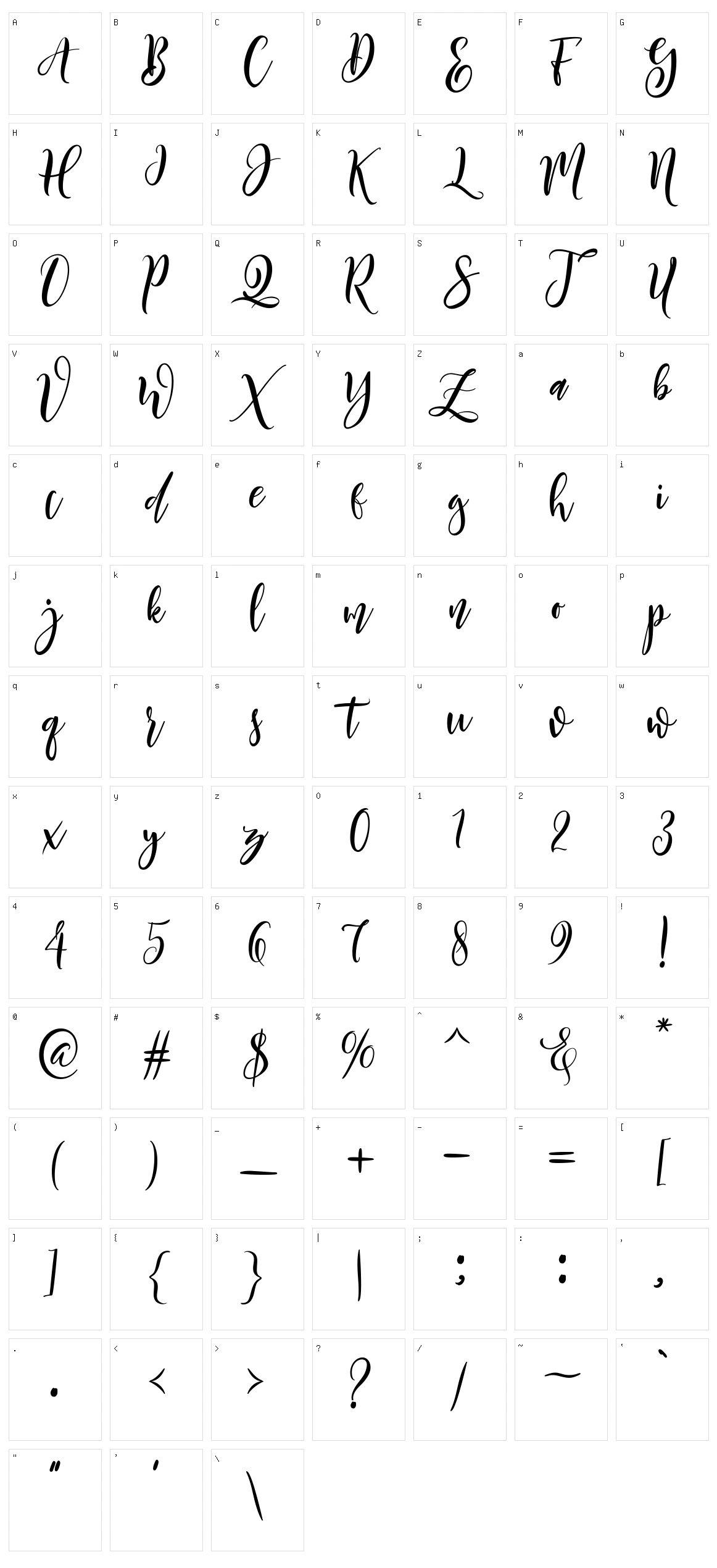
The free font Sheline is carefully designed by Sofian, showcasing a thoughtful balance of creativity and usability and falls under the Script font style. When you download the ZIP file, it contains only 83.56 KB of font files, making it lightweight and quick to download. Please review the license details below to understand permitted usage and distribution rights. If license information is not available, we recommend using this font for personal projects only or contacting the author directly for commercial usage permissions.